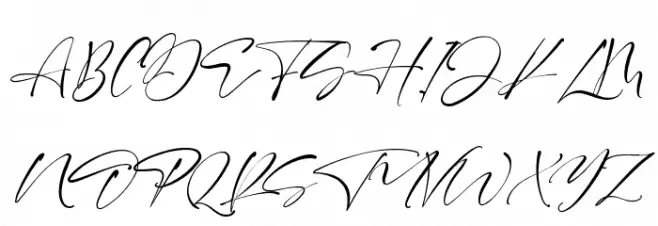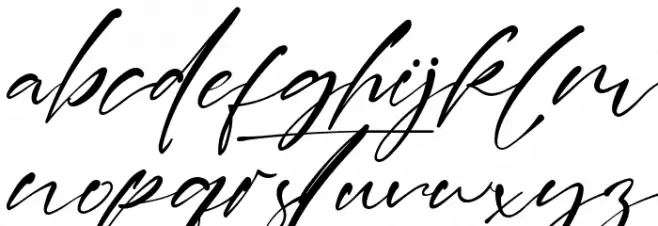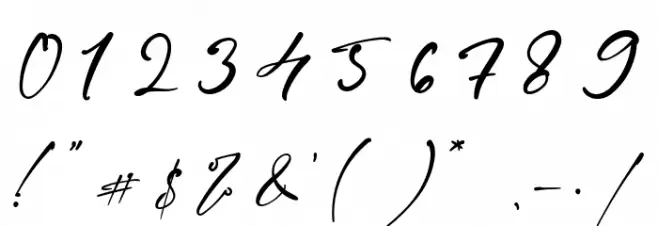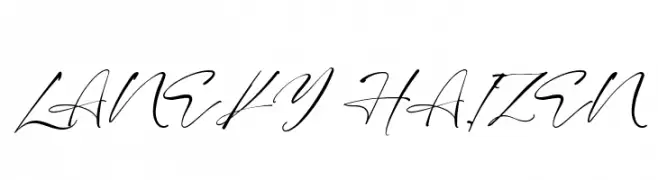
LANEKY HAIZEN
A flowing, cursive script font with elegant, sweeping strokes and a handwritten appearance.
Elegant cursive script with a handwritten style.
- Proposed Projects: Invitations, greeting cards, branding, and personal projects.
- Category: Script
- Overall Style: Decorative
- Use Case: Logos, Invitations, Greeting cards